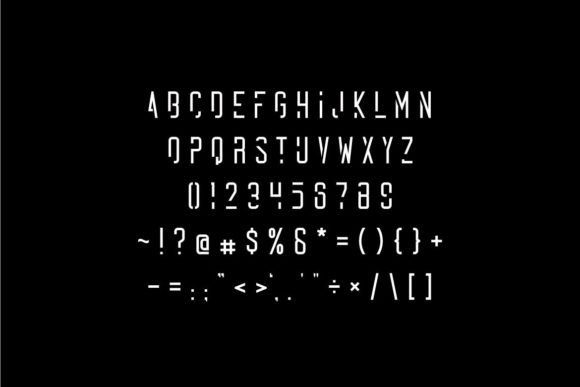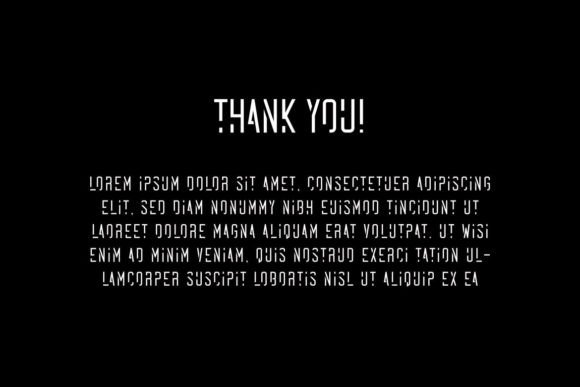
Introducing Exclipso Font: The Ultimate Modern Display Font
Are you tired of using the same old fonts for your designs? Look no further! Exclipso Font is here to revolutionize your creative projects with its modern, clean, and eye-catching style. This versatile display font is perfect for a wide range of applications, from posters and cards to book titles, headlines, news, banners, flyers, stationery, and many more.
What Makes Exclipso Font Stand Out?
Exclipso Font boasts a unique and sleek design that instantly grabs attention. Its clean lines and modern aesthetic make it an ideal choice for designers and crafters looking to add a touch of sophistication to their work. Whether you’re creating a bold poster or a elegant book title, Exclipso Font is sure to elevate your design to the next level.
Key Features of Exclipso Font
- Modern and Clean Design: Exclipso Font features a fresh and contemporary look that’s perfect for modern designs.
- Eye-Catching: The font’s unique style is sure to grab attention and make your designs stand out.
- Versatile: Use Exclipso Font for a wide range of projects, from posters and cards to book titles, headlines, news, banners, flyers, and stationery.
- Easily Readable: Despite its bold and eye-catching style, Exclipso Font remains easily readable, making it perfect for both print and digital designs.
Why Designers and Crafters Love Exclipso Font
Exclipso Font is a game-changer for designers and crafters looking to take their creative projects to the next level. Here are just a few reasons why:
- Endless Design Possibilities: With Exclipso Font, the design possibilities are endless. Use it to create stunning posters, elegant book titles, or eye-catching headlines.
- Unique and Professional Look: Exclipso Font gives your designs a unique and professional look that’s sure to impress clients and stand out in a crowded market.
Tips and Tricks for Getting the Most Out of Exclipso Font
Here are a few tips and tricks to help you get the most out of Exclipso Font:
- Experiment with Different Sizes and Colors: Exclipso Font looks great in a variety of sizes and colors. Experiment with different combinations to find the perfect look for your design.
- Pair with Other Fonts: Exclipso Font pairs well with other fonts. Try pairing it with a clean sans-serif font for a bold and modern look.
- Use for Headlines and Titles: Exclipso Font is perfect for headlines and titles. Use it to add a touch of sophistication and elegance to your designs.